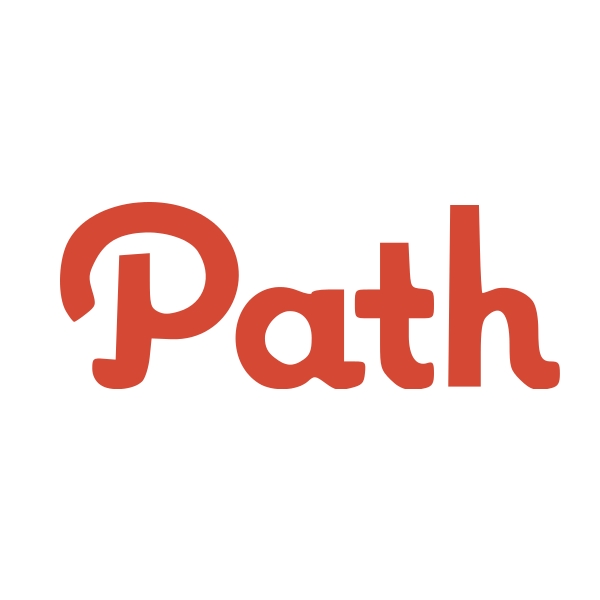
Path Font
FamilyPath was a social media platform that focused on private photo sharing, allowing users to share moments with a small, close-knit network of friends and family.
It is likely that the Path logo was created using the Coquette Bold typeface. Coquette, designed by Mark Simonson in 2001, blends the elegance of French script with geometric sans serif characteristics.